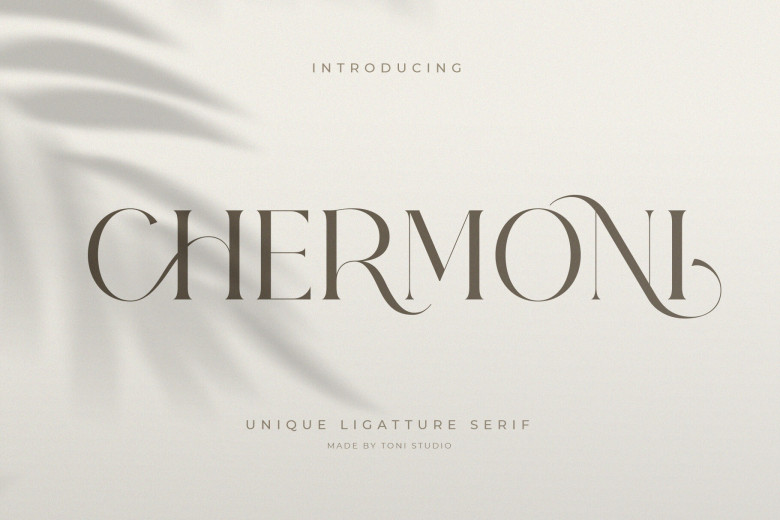
Chermoni Font
CHERMONI Ligature Serif Font is proud to introduce their all-new CHERMONI Ligature Serif Font! CHERMONI provides stunning typographical harmony for many designs. Perfect for sophisticated logos, elegant editorials and magazines targeted toward women alike as well as fashion brands,
cosmetics advertising design invitation cards art-inspired quotes books, home decor titles, covers of books special occasions bags totes advertising T-shirts etc… CHERMONI will add beauty and class wherever it’s used!
Chermoni Serif Font